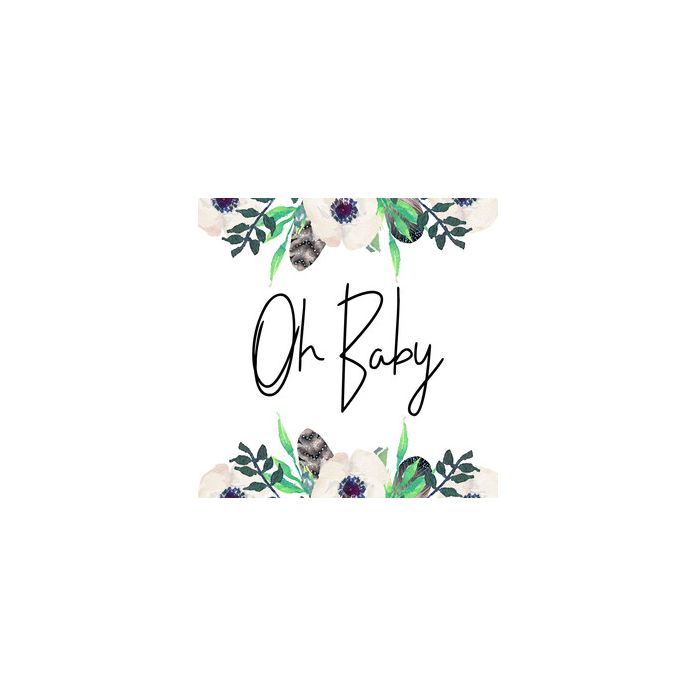
This font includes 203 glyphs. Oh Baby is a quick pen signature font that's perfect to make your designs pop! Comes with full international language support and bonus ligatures.